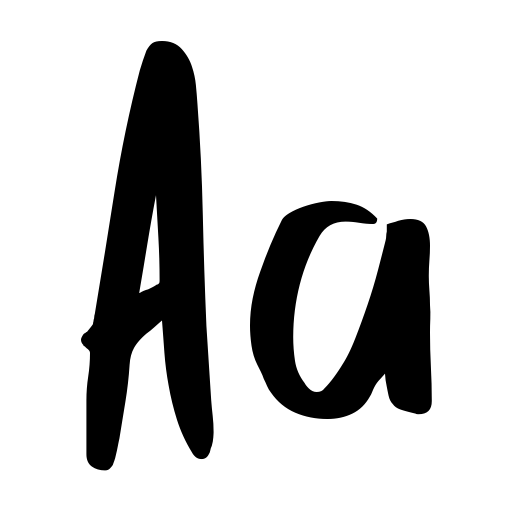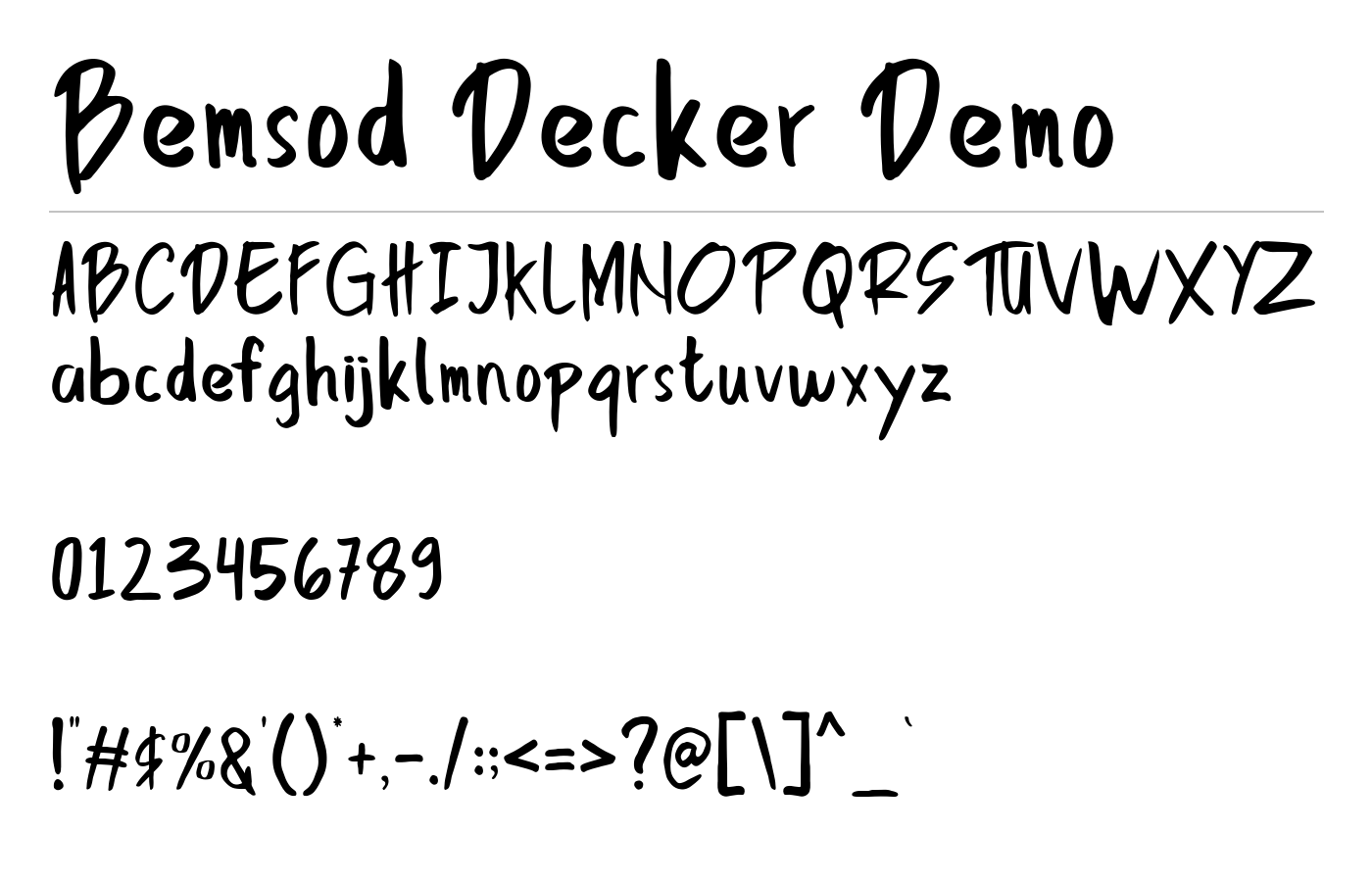
Bemsod Decker Demo is a playful and casual handwritten sans serif font with a slightly uneven, organic feel that mimics natural brush strokes. Its tall, narrow letterforms and consistent weight give it a friendly and approachable character, making it ideal for informal designs, children’s materials, or personal branding. This font works well in headlines, logos, and packaging where a warm, handcrafted aesthetic is desired.
Bemsod Decker Demo Font
About Bemsod Decker Demo Font